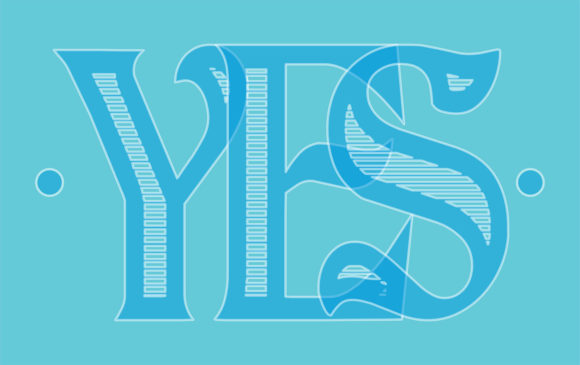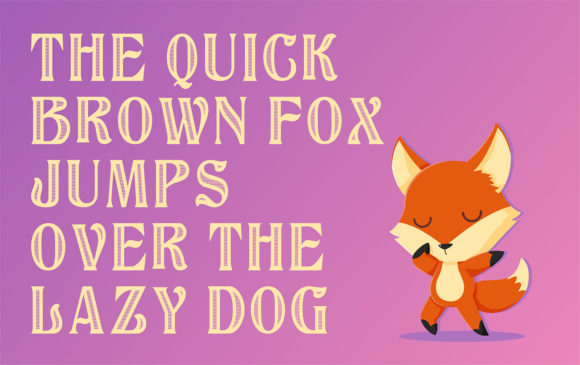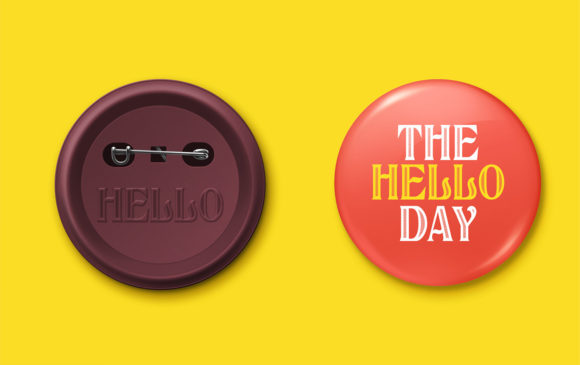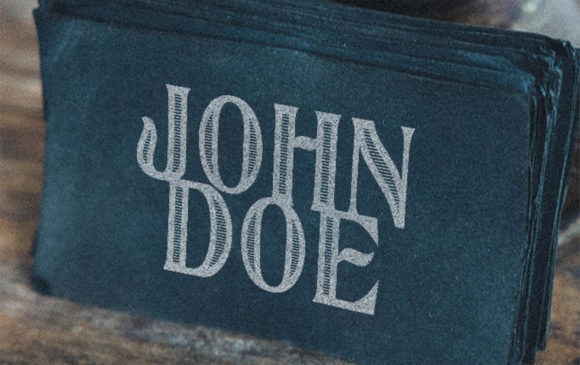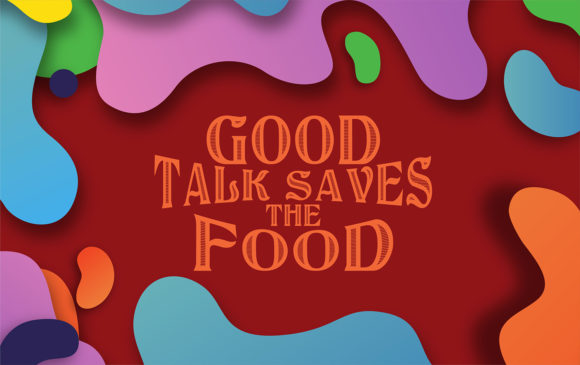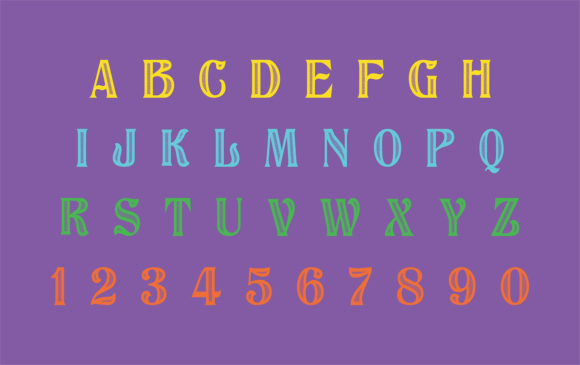
Discover the Charm of Classy Font: Elevate Your Designs with a Touch of Elegance and Playfulness
In the world of typography, fonts play a crucial role in conveying the tone and personality of a design. Among the numerous typefaces available, the Classy Font stands out for its unique blend of elegance and playfulness. This fun typeface is characterized by its mild corners and bold, stylish letter parts, making it an excellent choice for designers and crafters looking to add a striking touch to their creations.
The Unique Features of Classy Font
The Classy Font boasts a distinctive design that sets it apart from other typefaces. Its mild corners give the letters a soft, rounded appearance, while the bold and stylish letter parts add a sense of sophistication and elegance. This combination of features creates a visually appealing contrast that makes the font perfect for a wide range of design applications.
One of the key benefits of using the Classy Font is its versatility. The font’s unique design makes it suitable for various design projects, from playful and creative endeavors to more formal and professional ones. Whether you’re designing a logo, a brochure, or a website, the Classy Font is sure to make a lasting impression.
The Benefits of Using Classy Font in Your Designs
So, why should you choose the Classy Font for your designs? Here are just a few benefits of using this exceptional typeface:
- Playful yet sophisticated: The Classy Font’s unique design strikes the perfect balance between playfulness and sophistication, making it ideal for designs that require a touch of elegance and whimsy.
- Highly versatile: The font’s versatility makes it suitable for a wide range of design applications, from logos and brochures to websites and social media graphics.
- Easy to read: Despite its bold and stylish design, the Classy Font is easy to read, making it perfect for body text and headlines.
- Unique and memorable: The Classy Font’s distinctive design ensures that your designs will stand out from the crowd and leave a lasting impression on your audience.
How to Use Classy Font in Your Designs
Using the Classy Font in your designs is easy and straightforward. Here are a few tips to help you get started:
- Pair it with neutral backgrounds: The Classy Font’s bold design works best against neutral backgrounds that allow the font to take center stage.
- Experiment with colors: The font’s versatility makes it suitable for a wide range of color schemes. Experiment with different colors to find the perfect combination for your design.
- Use it for headlines and titles: The Classy Font’s bold and stylish design makes it perfect for headlines and titles. Use it to add a touch of elegance and sophistication to your designs.
Whether you’re a seasoned designer or a crafter looking to add a professional touch to your creations, here are a few tips to help you make the most of the Classy Font:
- Keep it simple: Don’t overcomplicate your design. The Classy Font’s bold design speaks for itself, so keep your design simple and clean.
- Experiment and have fun: The Classy Font is a versatile typeface that lends itself to experimentation. Don’t be afraid to try new things and have fun with your design.
- Pay attention to typography: Typography is a crucial element of design. Pay attention to font sizes, line spacing, and text alignment to ensure that your design looks professional and polished.
| Font Name | Classy Font |
| Author | bywahtung |
In conclusion, the Classy Font is a unique and versatile typeface that offers a perfect blend of elegance and playfulness. Its mild corners and bold, stylish letter parts make it an excellent choice for designers and crafters looking to add a striking touch to their creations. With its high legibility, versatility, and distinctive design, the Classy Font is sure to elevate your designs and make them stand out from the crowd.